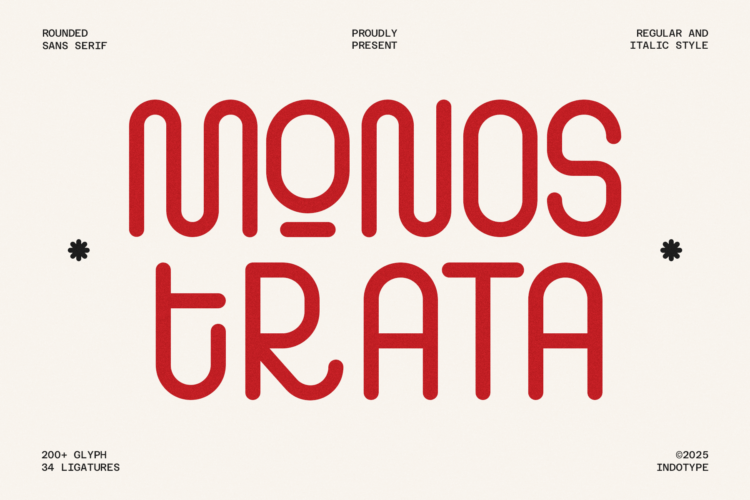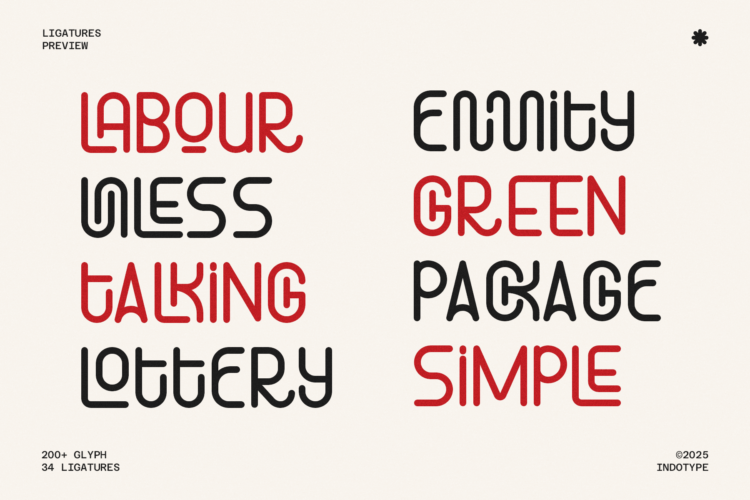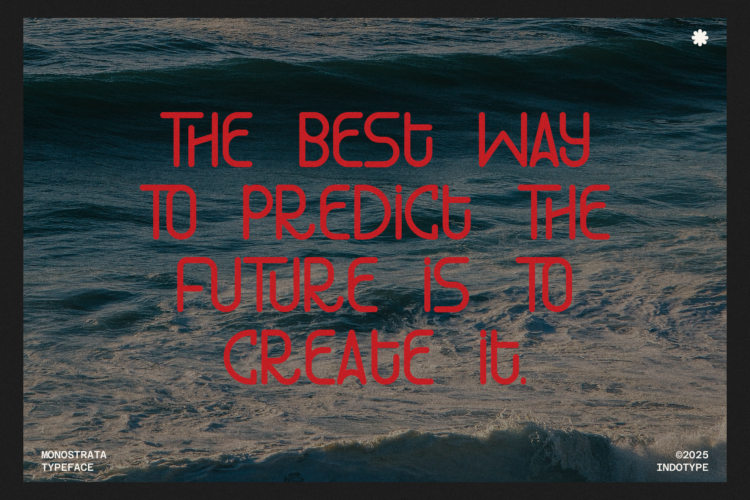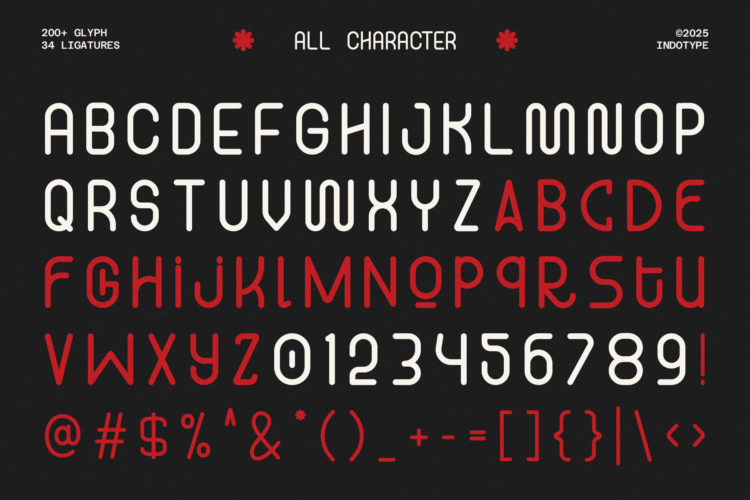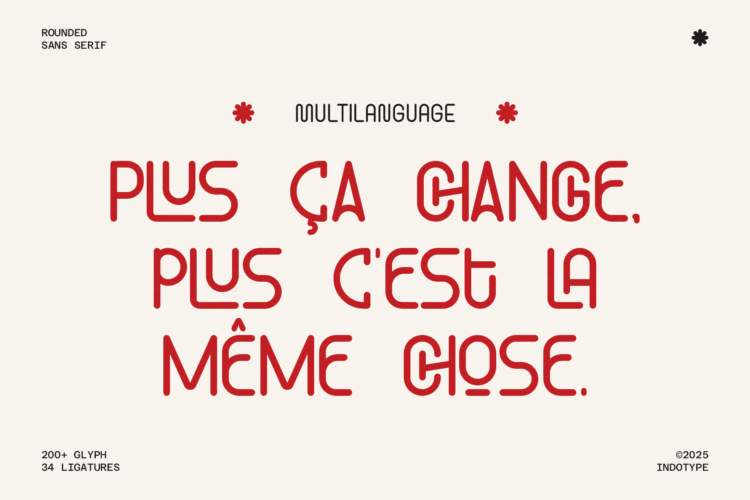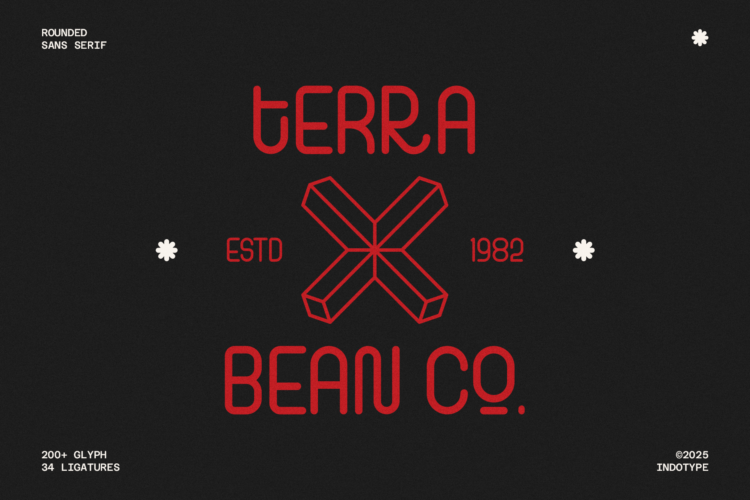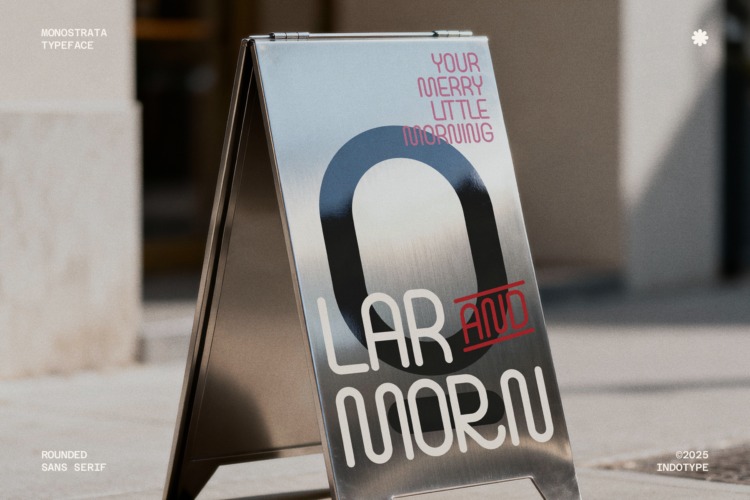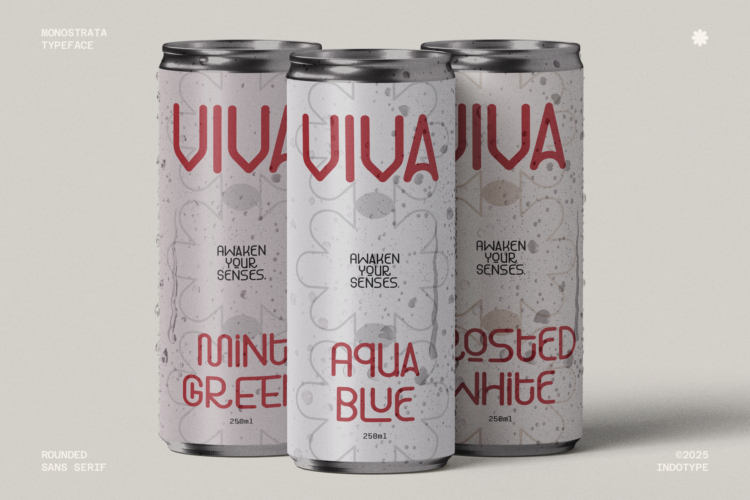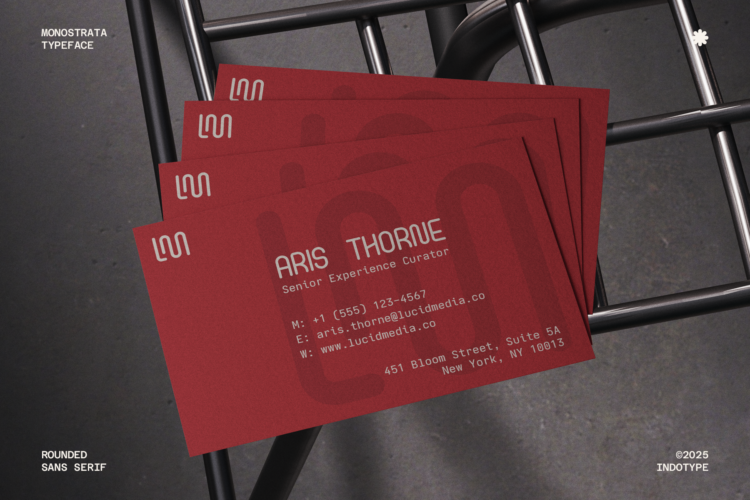
Monostrata is a modern rounded sans serif typeface that merges geometric precision with a smooth monoline aesthetic. Designed with minimalist clarity and friendly curves, it brings a clean, futuristic feel that remains warm and approachable. This typeface features over 200 glyphs and 34 creative ligatures, providing flexibility for custom typography and expressive compositions. Monostrata’s balance between uniform line weight and rounded terminals gives it a sleek yet human touch — ideal for logos, posters, packaging, headlines, and contemporary branding. Available in Regular and Italic styles, Monostrata delivers consistency across different design contexts while maintaining its distinct monoline personality. Whether for digital interfaces or print materials, Monostrata ensures readability, style, and modern charm in every letterform.
- Regular and Italic Style
- Including Ligature Glyphs